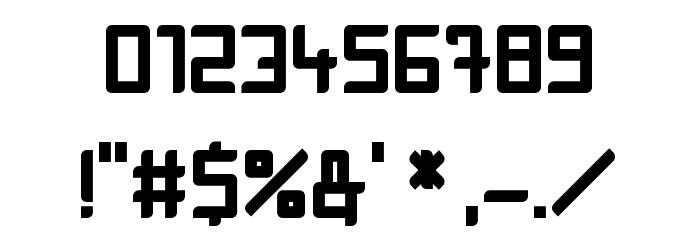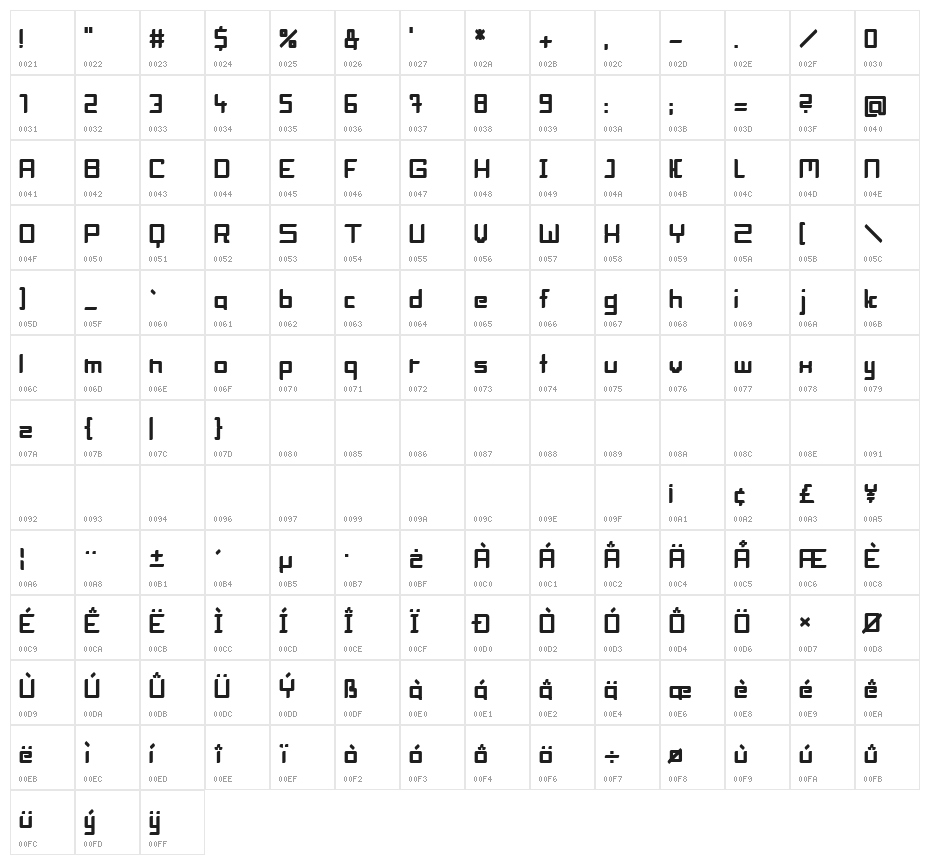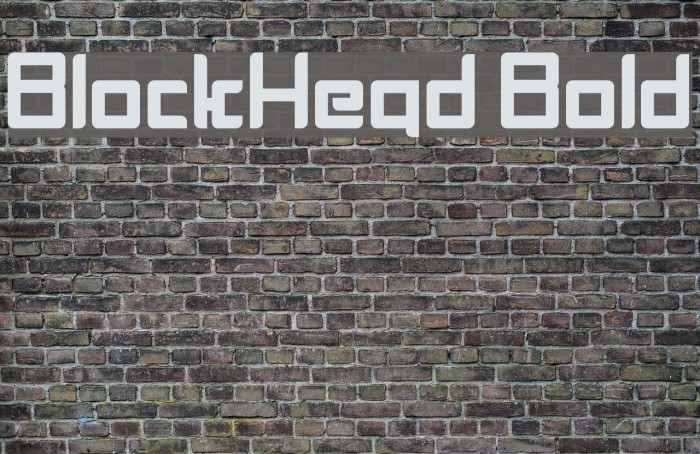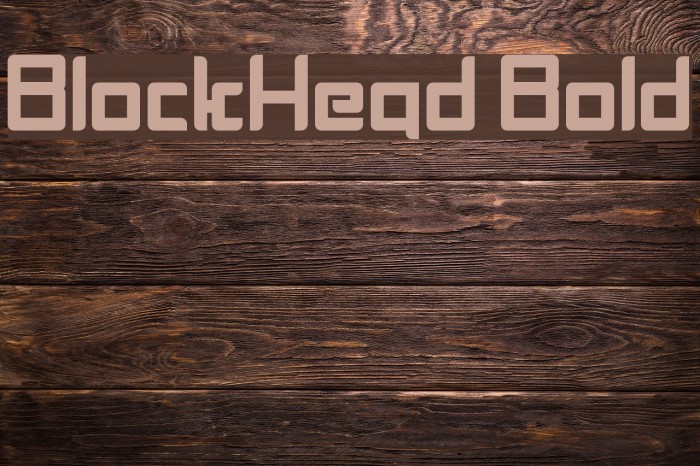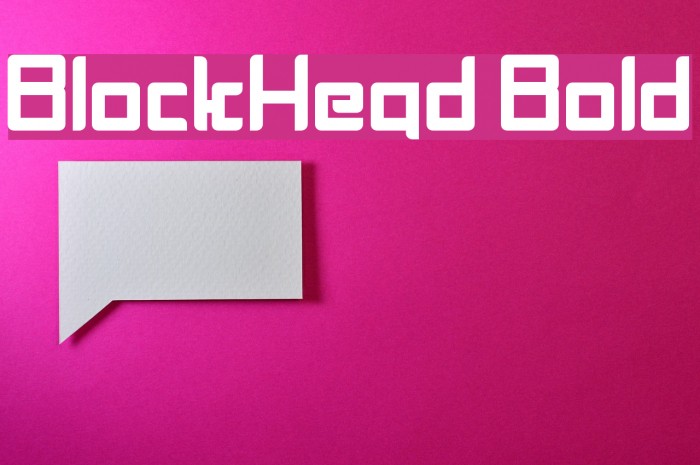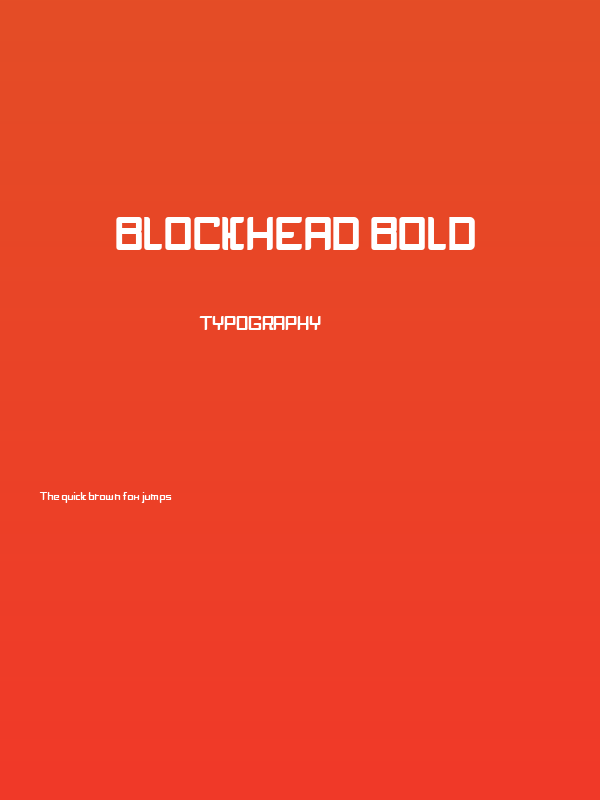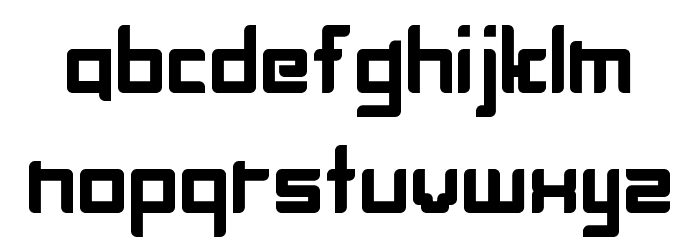
BlockHead Bold Font
BlockHead Bold Description
This font features a bold, geometric design with a distinctly modern and industrial feel. The characters are constructed with thick, uniform strokes and squared edges, giving it a blocky appearance. The uppercase and lowercase letters maintain a consistent height, contributing to a cohesive and structured look. The numerals and special characters follow the same design principles, ensuring uniformity across all glyphs. This font's strong presence and clear legibility make it suitable for impactful design projects.
| Proposed Projects | Ideal for branding, posters, headlines, and signage where a strong, modern impact is desired. |